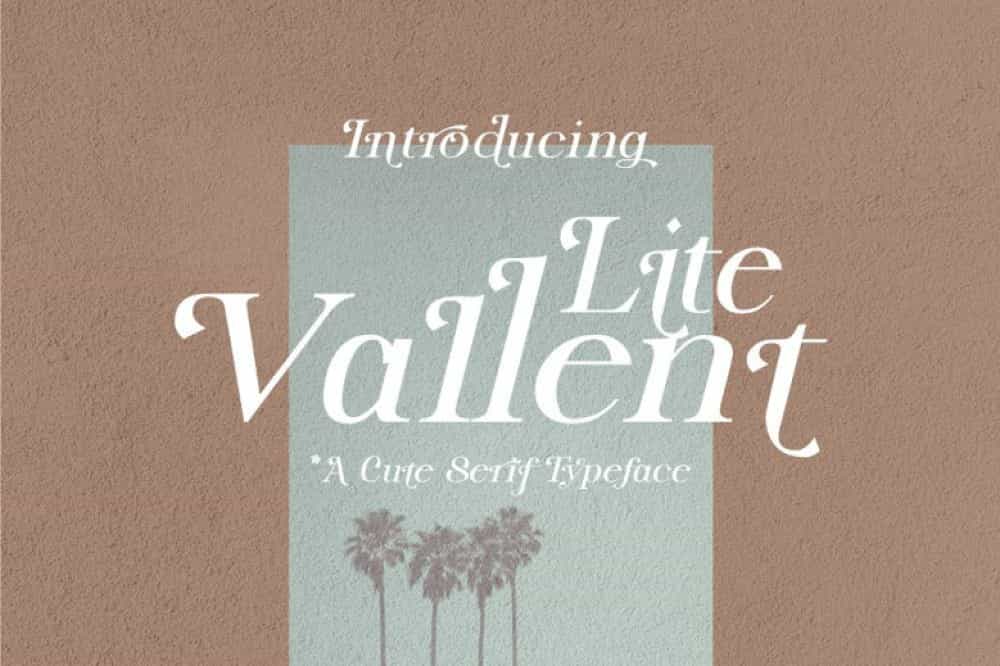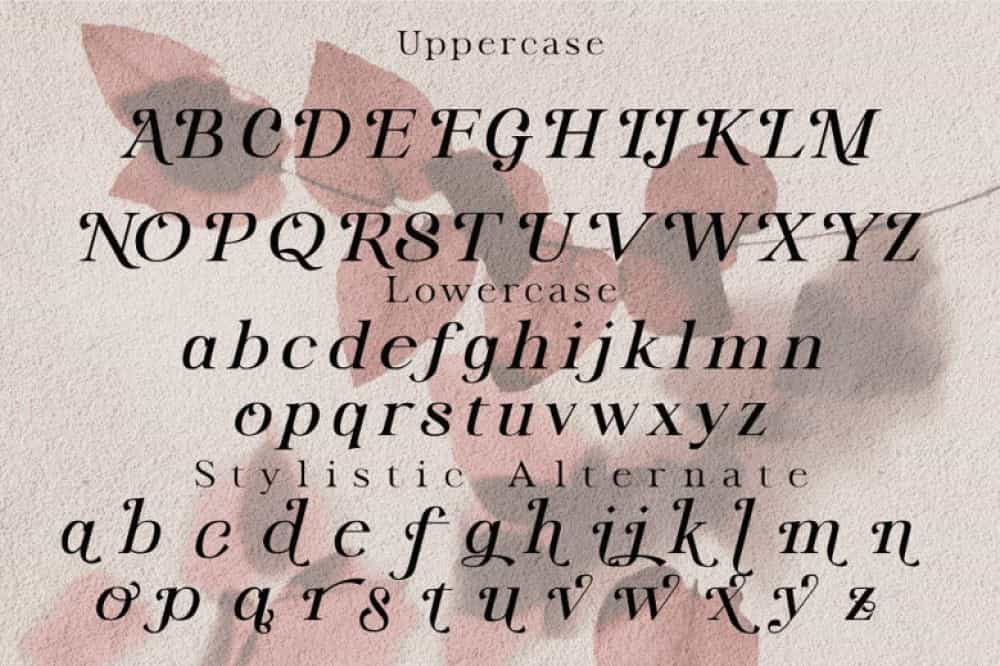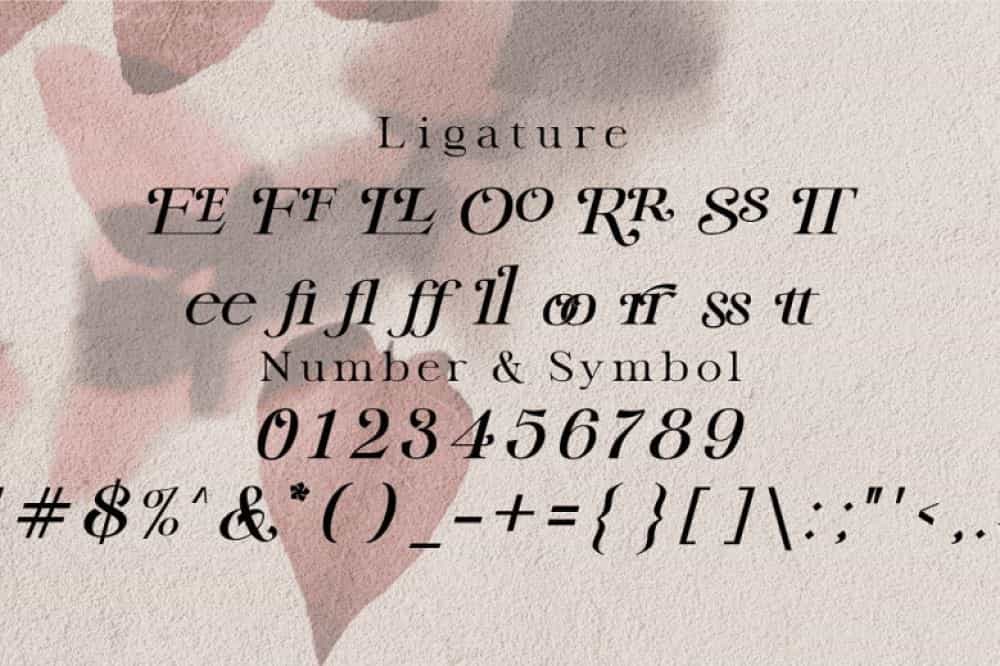
Lite Vallent is a cute serif font that will provide that old school vibe with a dash of cuteness. Lite Vallent is an excellent font for brand projects, logos, quotes, and other design use, where the user wants to achieve a balance between the serious and playful fonts. Medium weight strokes make it appear welcoming and accessible, great for enhancing the mood and attitudes of your projects.